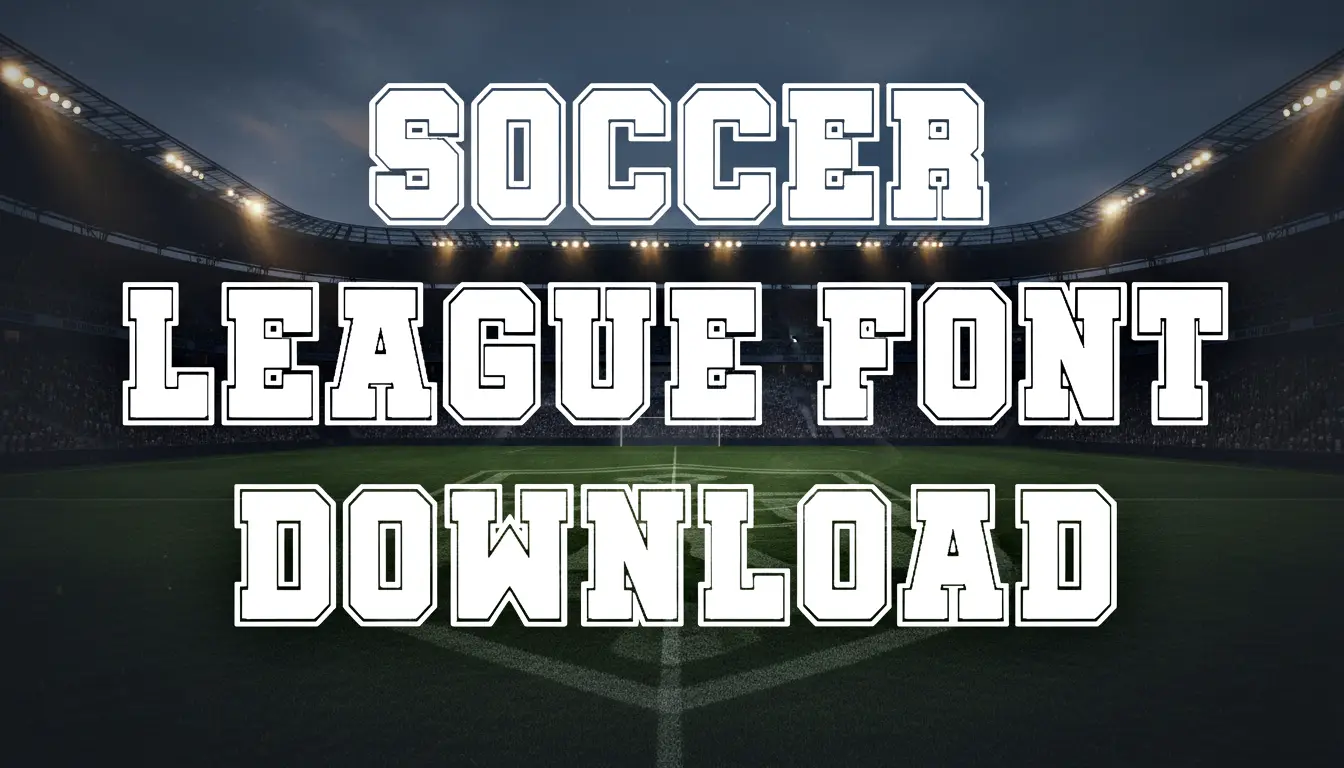
Soccer League Font
Soccer League is a fancy font created by Vladimir Nikolic. It's a decorative display font with plenty of personality, made to grab attention. You get two styles in one free ZIP, and the preview above lets you test each one before you download.
What You Can Type With Soccer League
Soccer League covers the full alphabet in upper and lowercase, plus all ten numbers, so you can set names, dates and prices without switching fonts. Everyday marks like ! and ? are there too. There are no accented letters like é or ñ, so it's best kept to English text.
Where Soccer League Works Best
Soccer League is a natural fit for posters, logos and eye-catching headlines. Use it for one standout word or headline and let simpler fonts handle the rest. Because the family has more than one style, you can mix them in a single design for headings, subheadings and highlights.
Does Soccer League support accented letters?
No. Soccer League has no accented letters such as é, ñ or ü, so it's best for English text.